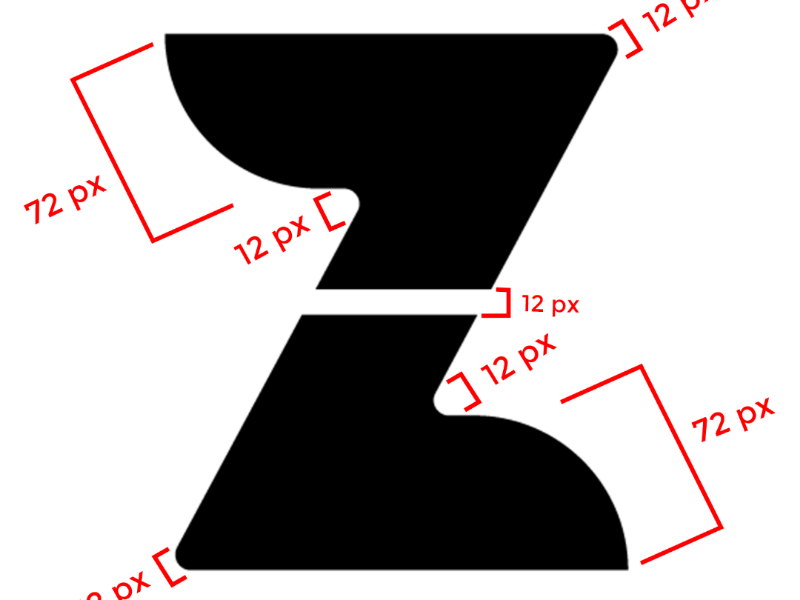
Formation of glyph font | DEBROSEE FONT
This is the process of making the letter "Z" in my second font, DEBROSEE Font. The process of making uppercase, lowercase letters, numbers and symbols are all the same. So, I gave an example of just one letter.
I made this letter not carelessly. I pay attention to the part of the big arch and the part of the small arch. With the aim to be comfortable seen by everyone.